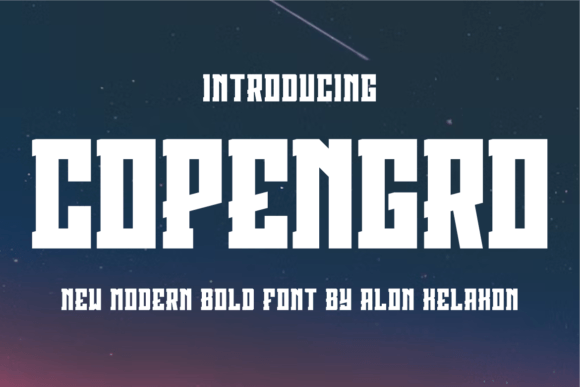
Prepare yourself to unveil the Copengro Font, a typographic masterpiece that will inject raw power and an undeniable aura of masculinity into your designs. This display font isn't just a collection of letters; it's a visual symphony that commands attention and leaves a lasting impression.
Imagine your posters, headlines, and gym banners adorned with the bold strokes and chiseled edges of Copengro. Each character radiates strength and determination, embodying the essence of a modern warrior. Whether you're crafting a motivational message or declaring your brand's dominance, Copengro is the perfect font to convey your message with impact.
Step into the arena of digital design with Copengro as your weapon of choice. Its robust structure and sharp angles evoke a sense of authority and power that will make your words resonate with unwavering conviction. Unleash your creativity and let Copengro elevate your designs to new heights of visual dominance.
With Copengro at your disposal, you'll discover a world of possibilities. Create posters that demand attention, headlines that ignite curiosity, and banners that inspire action. The Copengro Font is more than just a typeface; it's an extension of your creative vision, allowing you to craft designs that speak volumes without uttering a single word.
Join the ranks of design visionaries who have harnessed the power of Copengro to create masterpieces that capture hearts and minds. Its versatility knows no bounds, as it seamlessly adapts to a wide range of design projects. Whether you're designing for print, web, or social media, Copengro will elevate your work to new levels of excellence.